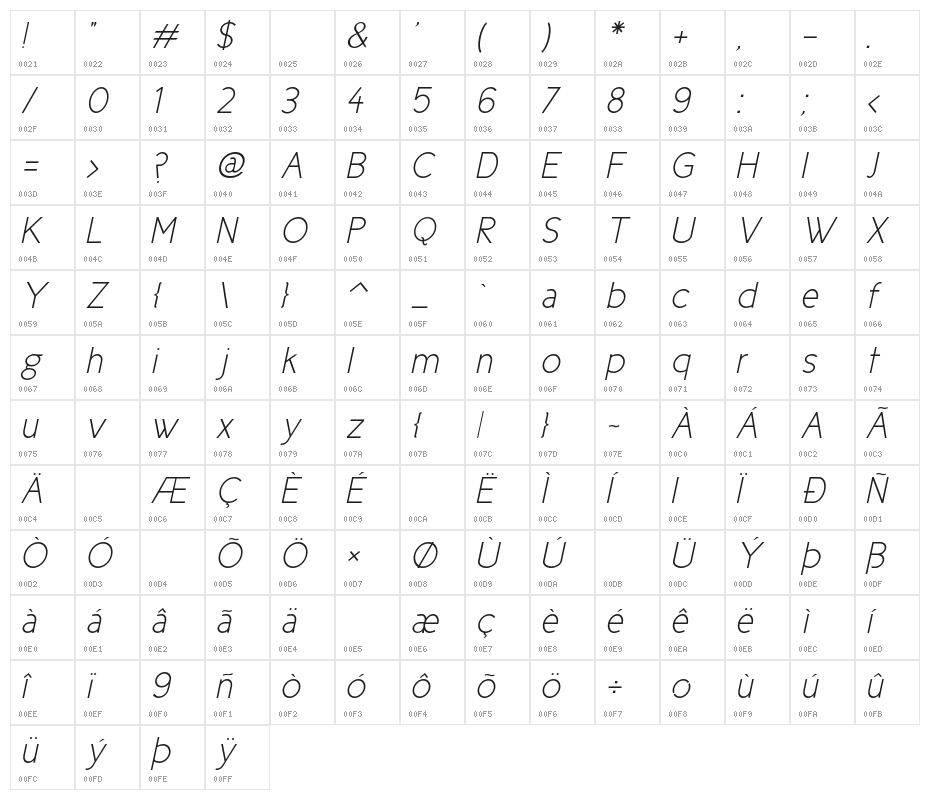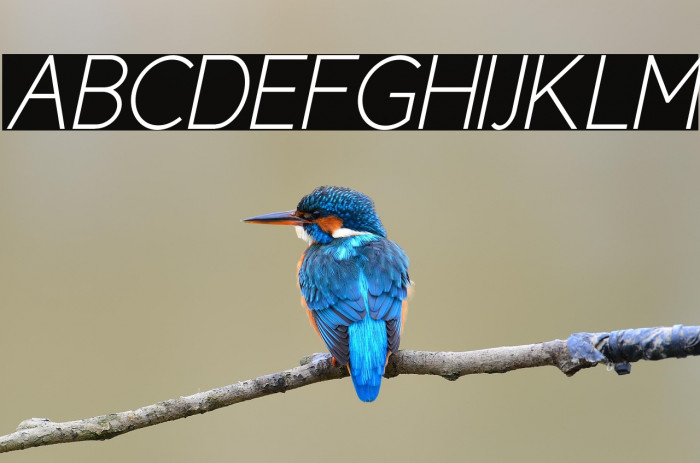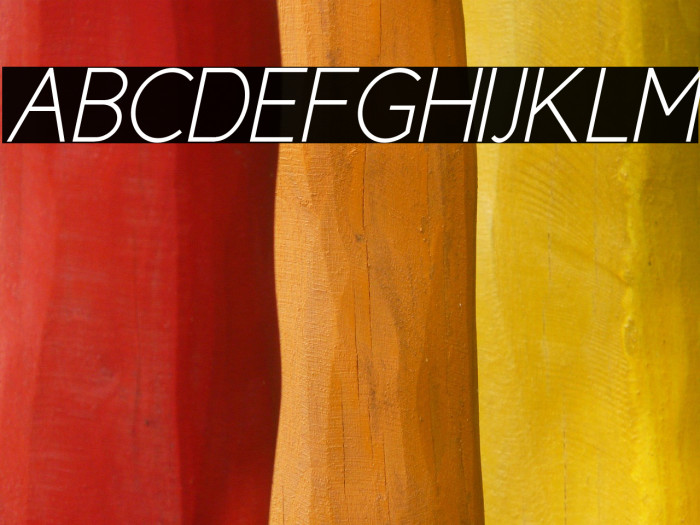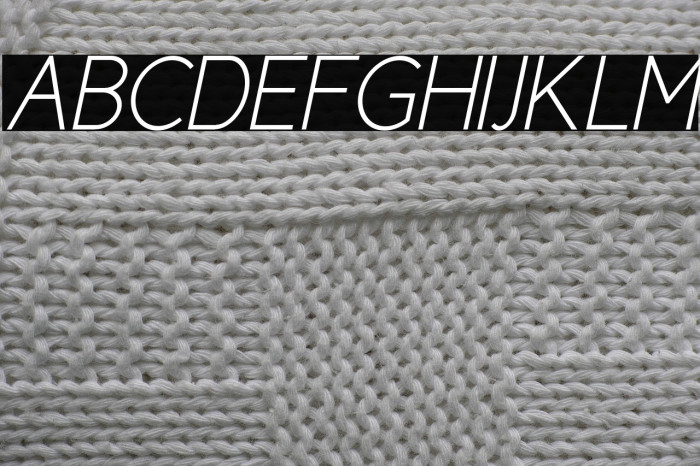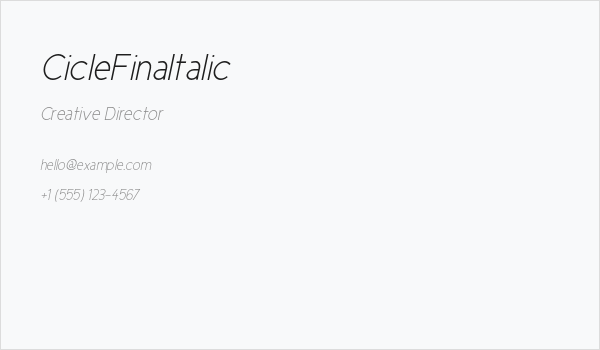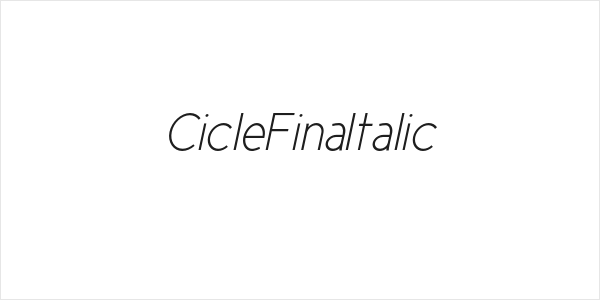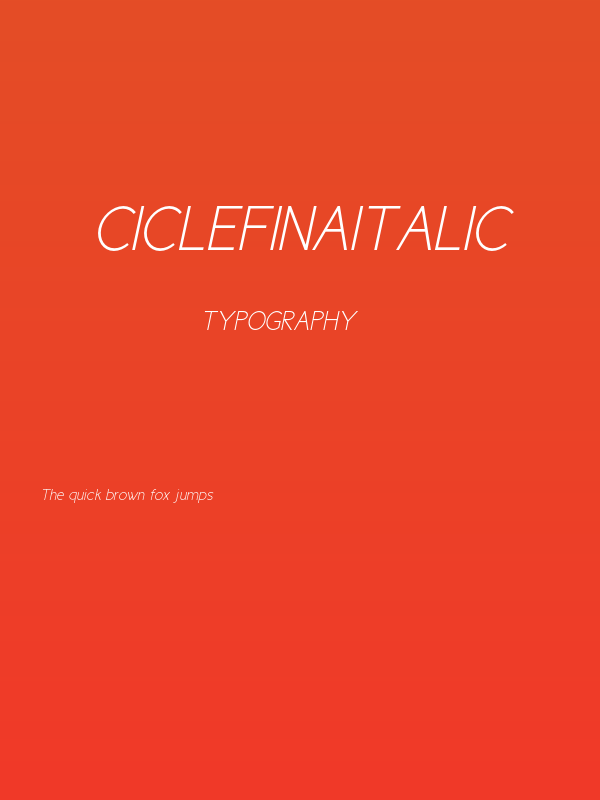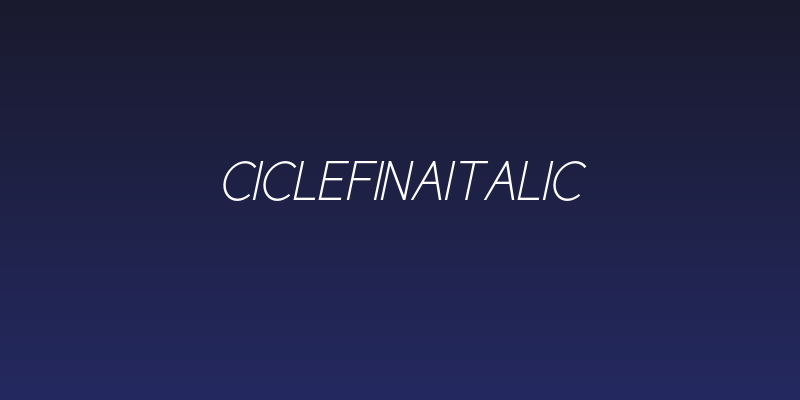
CicleFinaItalic Font
CicleFinaItalic Description
This font exudes a sleek and modern aesthetic with its clean, streamlined lines and subtle curves. The characters are slightly slanted, giving it an italicized appearance that adds a sense of motion and elegance. The uniform stroke width throughout the letters contributes to a harmonious and balanced look, making it ideal for conveying a contemporary and sophisticated feel. The font's simplicity and clarity ensure excellent readability, while its stylish flair makes it suitable for a variety of design contexts. The numerals and special characters are crafted with the same attention to detail, maintaining consistency across the entire typeface.
| Proposed Projects | Ideal for branding, editorial design, fashion magazines, and modern web design. |